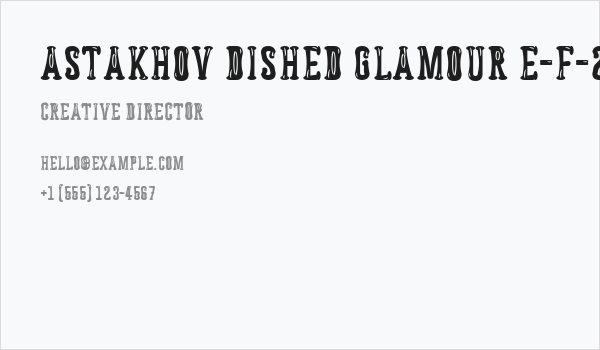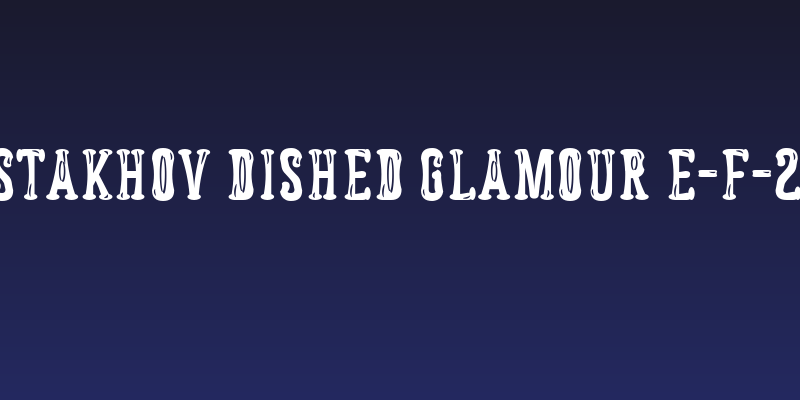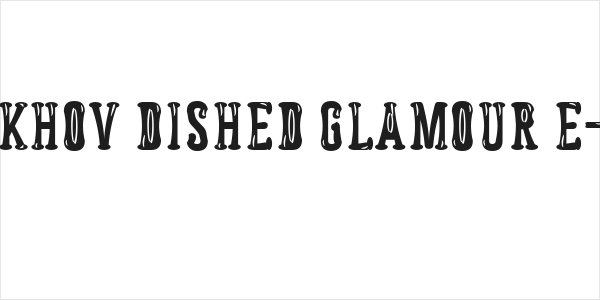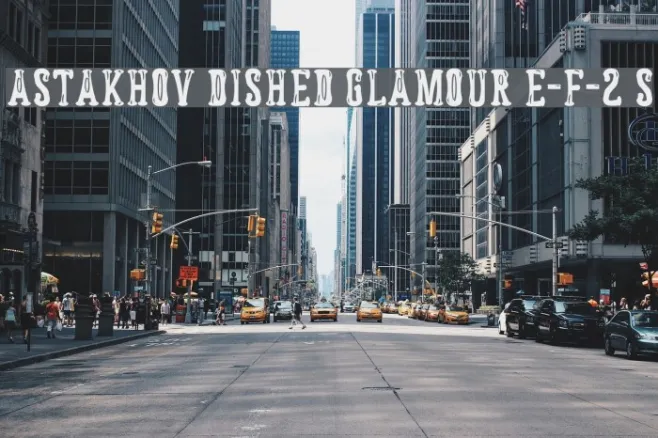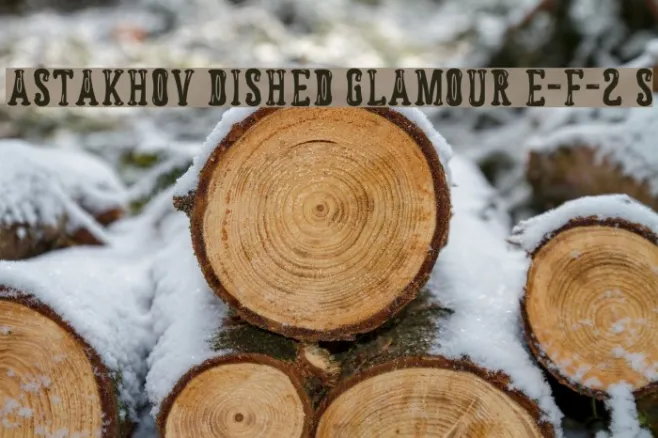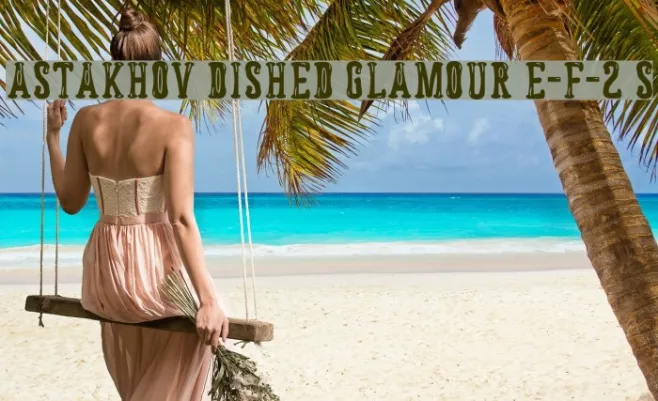
Astakhov Dished Glamour E-F-2 S Font
Astakhov Dished Glamour E-F-2 S Description
This font features a bold and decorative style with a unique, playful twist. Each character is designed with a distinct flair, incorporating exaggerated serifs and whimsical curves that give it a lively and dynamic appearance. The uppercase and lowercase letters maintain a consistent weight, providing a cohesive look across the board. Numbers and special characters are equally stylized, ensuring a uniform aesthetic throughout. The font's boldness and decorative elements make it stand out, capturing attention with its artistic and slightly retro vibe.